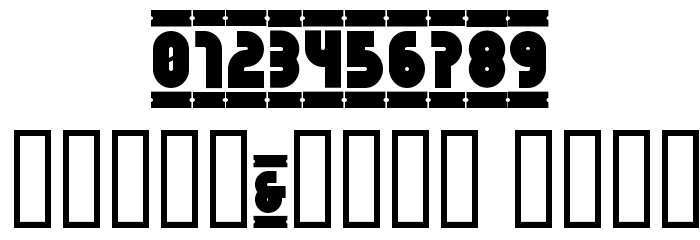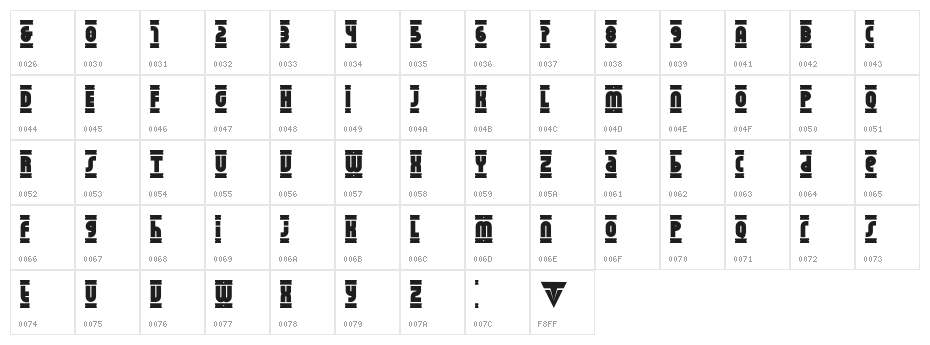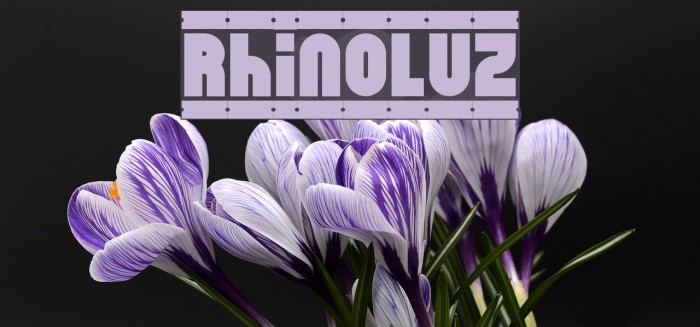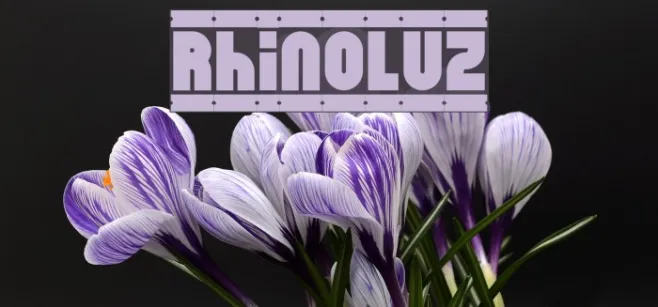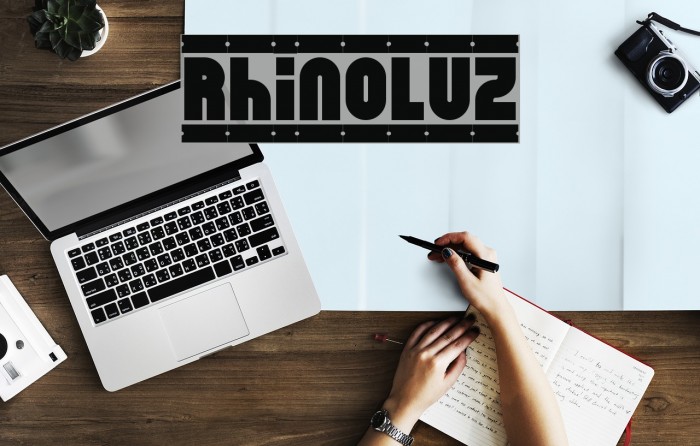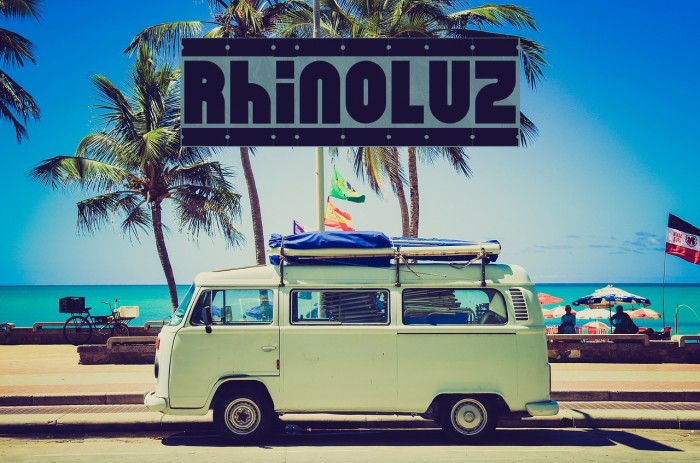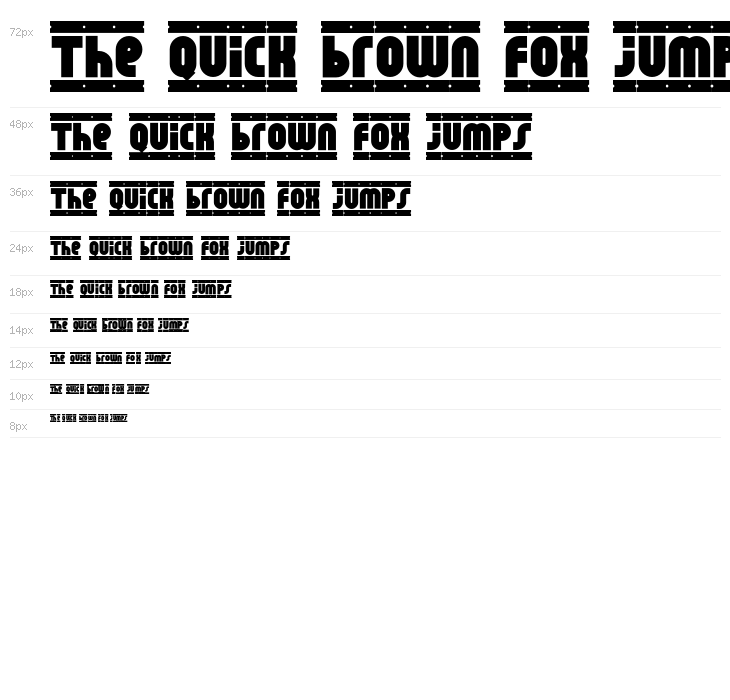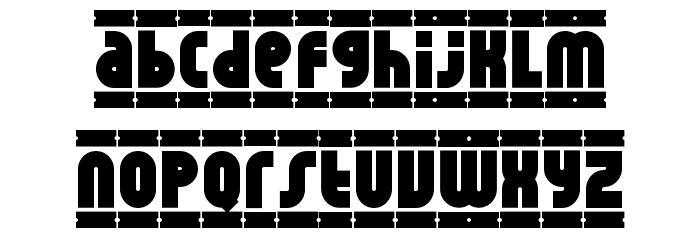
RhinoLuz Font
RhinoLuz Description
This font features a bold, geometric design with a strong presence. The characters are constructed with thick, uniform strokes and have a distinct, blocky appearance. The uppercase and lowercase letters maintain a consistent style, emphasizing straight lines and sharp angles. The numerals and special characters follow the same bold and structured aesthetic, making them easily recognizable. This font's design is both modern and industrial, with a unique flair that stands out in any context.
| Overall Style | Modern, Industrial |
| Proposed Projects | Ideal for branding, posters, headlines, and signage where a strong, impactful statement is needed. |